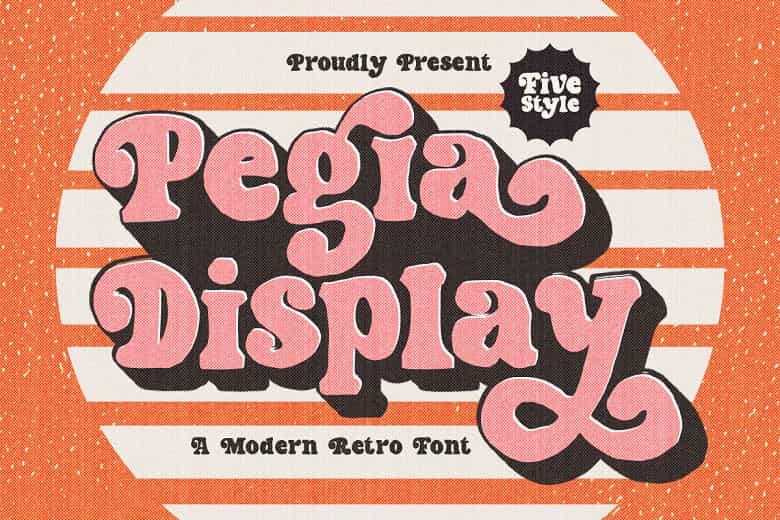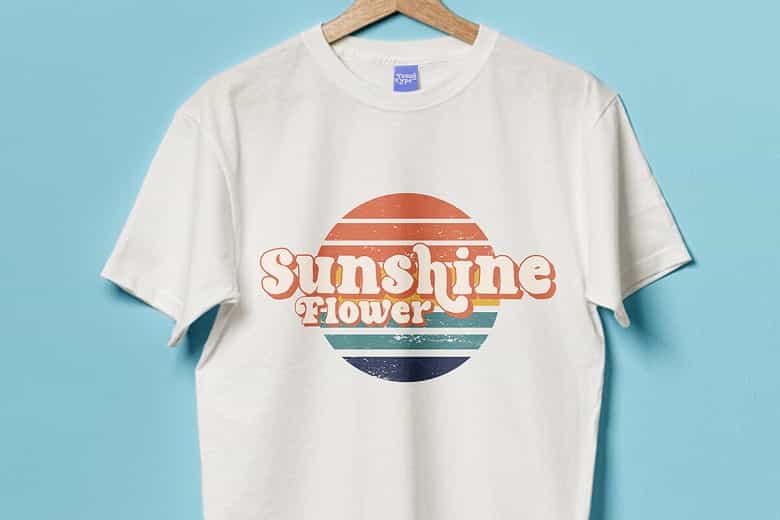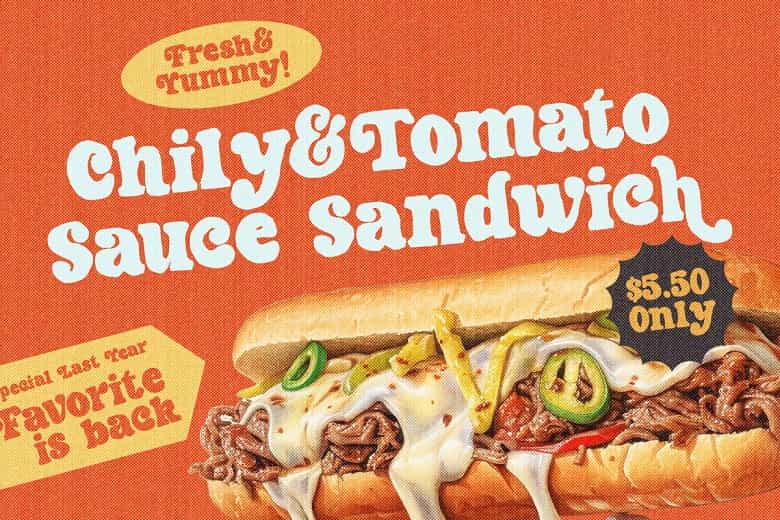
Pegia Display is a cute modern display retro font family. It will make your designs all the more cheerful. Use this stunning display font in all your designs and projects and see how it will bring life to them!